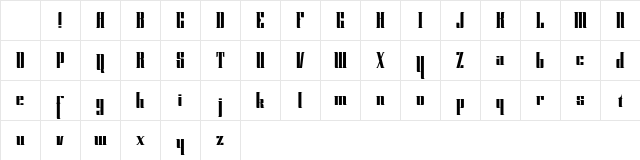
Complete CyberGothic DEMO Regular glyph index. Displaying only characters natively supported by CyberGothic DEMO Regular font.
CyberGothic DEMO has a distinctly futuristic character, with geometric precision and clean angles that feel at home in technology, gaming, and sci-fi contexts.